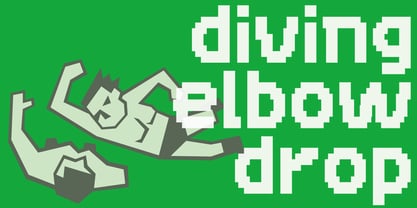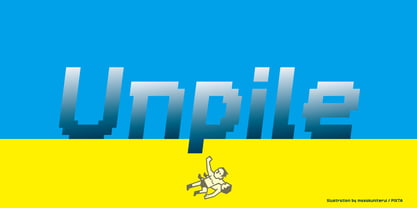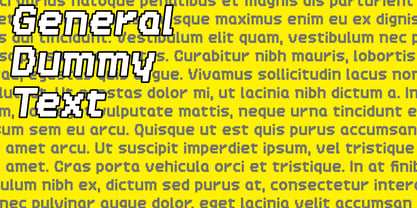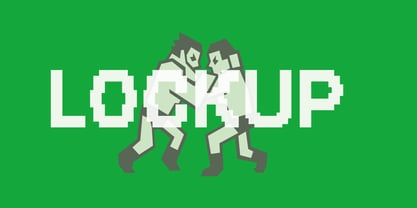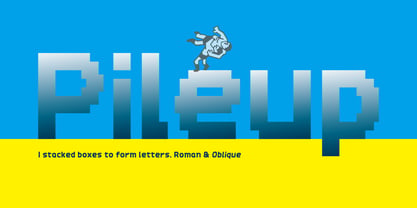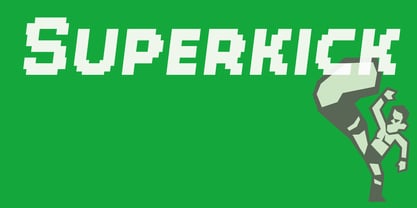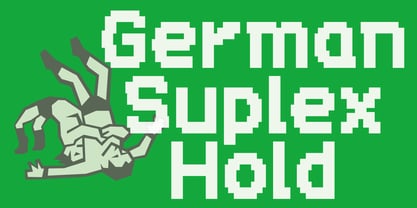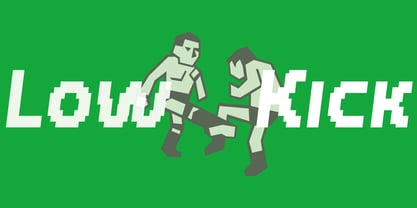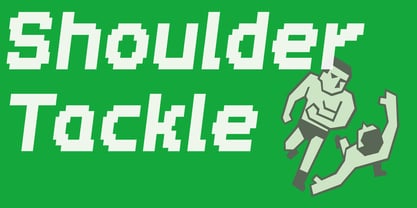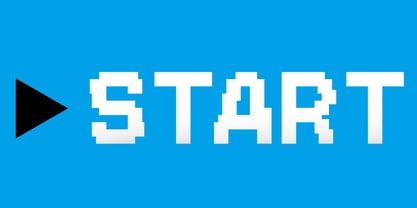
Pileup
The Pileup Font Family was designed by Shuji Kikuchi and published by sugargliderz. Pileup contains 2 styles and family package options. More about this family
An unidentified square object falls from above. Whether it is soft or hard is unclear, but it undeniably possesses a sense of weight. Upon hitting the ground, it compresses slightly, sending up a small cloud of dust. One after another, these objects fall with force and gradually take the shape of letters. This typeface was designed while imagining such a scene. With its strongly weighted forms, the typeface is well suited for presenting short words in a bold, attention-grabbing way. It works effectively when visual impact is required, or when used as an accent to subtly yet decisively draw the viewer’s eye.
sugargliderz is a small private foundry that started its activities in 2006. I make fonts every day based on the principle of giving shape to the things I am interested in. I don't see letters as something to design, but as something to shape. I create fonts by giving importance to "numerical values," "senses," and "coincidences. Of course, if someone somewhere likes it and uses it, I am very happy. But I always deviate from the standard way of thinking, somehow.